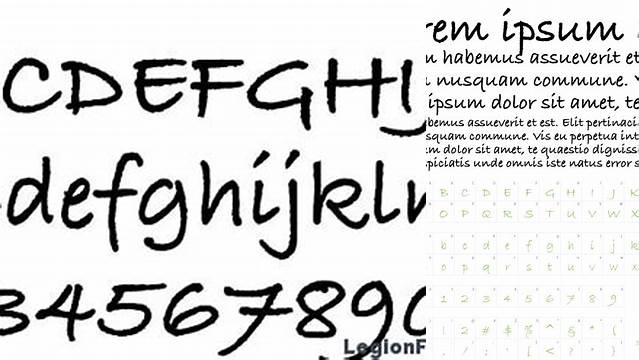
Are you looking to infuse a personal, handwritten touch into your designs? The Bradley Hand ITC TT Bold font is an excellent choice, guys! This font, with its casual yet legible style, is perfect for a variety of projects. In this comprehensive guide, we will delve into the details of this fantastic font, exploring its characteristics, ideal uses, and how you can download it for free. So, let's dive right in!
What is Bradley Hand ITC TT Bold Font?
Bradley Hand ITC TT Bold font is a typeface designed to mimic natural handwriting. It falls under the category of script fonts, which are characterized by their flowing, cursive-like strokes. The “TT” in the name signifies that it’s a TrueType font, a standard in the font industry known for its scalability and compatibility across different operating systems. The “Bold” designation indicates a heavier weight, giving the font a stronger, more pronounced appearance. This makes it stand out while still maintaining a friendly and approachable feel. Its unique handwritten style makes it a popular choice for projects that require a personal touch, setting it apart from more formal and sterile typefaces. This font is not just another typeface; it’s a tool to communicate warmth and authenticity.
The Bradley Hand ITC TT Bold font's distinctive qualities are rooted in its attempt to replicate the nuances of human handwriting. Unlike many digital fonts that strive for perfect lines and symmetry, this font embraces the slight imperfections and variations that are inherent in natural script. This gives it a charming and relatable quality, making it feel less like a machine-generated text and more like a handwritten note. The bold weight adds a significant element to its character, providing emphasis and making the text highly legible, even at smaller sizes. This bold characteristic is crucial because it ensures that the font doesn’t fade into the background, especially in designs where readability is paramount. Whether it’s used in headings, body text, or callouts, this font has the versatility to adapt and perform effectively.
Furthermore, the font's design considers both aesthetics and functionality. The strokes are fluid and connected, mirroring the natural flow of handwriting, but they are also carefully crafted to maintain clarity. This balance is key to the font’s success, as it allows the font to be both visually appealing and practical. In the world of design, the ability of a font to communicate effectively is just as important as its appearance, and this font excels in both areas. Its design caters to a wide array of applications, from digital platforms to print media, ensuring that the message is conveyed with the desired tone and impact. Whether you’re designing a website, creating marketing materials, or crafting personal invitations, this font offers a unique blend of style and substance.
Key Characteristics of the Font
When we talk about the key characteristics of the Bradley Hand ITC TT Bold font, we're diving into what makes this typeface so special and versatile. First off, its handwritten style is the most defining feature. This isn't just a generic script font; it genuinely looks like someone sat down and wrote it out, complete with the little quirks and variations you'd expect from real handwriting. This human touch is what makes it so appealing for projects that need a personal feel.
The bold weight is another crucial characteristic. It adds a certain emphasis and presence to the text, ensuring it doesn't get lost in the background. This is particularly useful when you need your message to stand out, whether it's in a heading, a callout, or even body text. The boldness doesn't just make it more visible; it also adds to the font's friendly and approachable vibe. It's like a warm, confident voice speaking to your audience.
Furthermore, the legibility of Bradley Hand ITC TT Bold font is a standout trait. Despite its script nature, the font is designed to be easily readable across various sizes and applications. This is achieved through careful spacing and clear letterforms, ensuring that the text remains clear even in smaller formats. The TrueType format also plays a significant role in this, providing crisp and sharp rendering across different devices and screens. Whether it’s on a large poster or a small digital display, the font maintains its clarity, making it a reliable choice for diverse projects. This ensures that your message is not only conveyed stylishly but also understood effortlessly.
Another noteworthy aspect is the font’s versatility. While it’s excellent for informal and creative contexts, its clean lines and balanced design also allow it to be used in more professional settings, provided the tone aligns with the brand. This adaptability makes it a valuable asset in any designer's toolkit. It can add a touch of personality to business cards, make presentations more engaging, or even bring a unique flair to website designs. The ability to bridge the gap between casual and professional is what sets this font apart, making it suitable for a wide range of design needs. It’s a font that can evolve with your project, maintaining its charm and effectiveness in various contexts.
Ideal Uses for Bradley Hand ITC TT Bold Font
Now, let's explore the ideal uses for Bradley Hand ITC TT Bold font. Guys, this font is incredibly versatile, making it a fantastic choice for a wide array of projects. Think about where you want to add a personal touch – that's where this font shines.
One of the most common and effective uses is in branding and marketing materials. For businesses aiming to project a friendly, approachable image, this font can be a game-changer. Imagine using it in your logo, on your website, or in your promotional flyers. It instantly makes your brand feel more human and relatable. Small businesses like bakeries, craft stores, or boutiques often find that the handwritten style aligns perfectly with their brand identity. It adds a sense of authenticity and care, which can be particularly appealing to customers. In marketing, using this font can help your message stand out from the crowd, creating a memorable impression that resonates with your target audience. Whether it’s a catchy tagline or a heartfelt message, this font can amplify the emotional connection, making your marketing efforts more impactful.
Another great area for Bradley Hand ITC TT Bold font is in invitations and greeting cards. If you're planning a wedding, a birthday party, or any special event, this font can add an elegant and personal touch to your invitations. It feels much more special than a standard, formal typeface. Similarly, for greeting cards, the handwritten style conveys warmth and sincerity, making your message feel more heartfelt. The bold weight ensures that the text is easily readable, even on smaller cards, and the overall effect is both stylish and personal. This makes the font an excellent choice for any occasion where you want to create a lasting impression of care and attention to detail. It transforms a simple invitation or card into a keepsake that recipients will cherish.